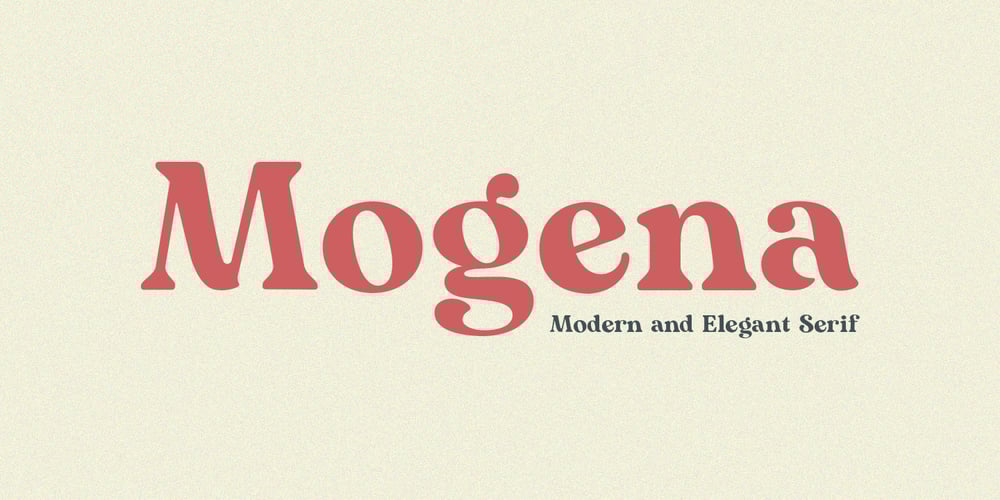
Mogena Font Family was designed by Eko Nur Cahyo and published by Kulokale. Mogena contains 2 styles and family package options. Mogena is a modern and elegant serif. It has a unique and different style and will give your design a friendly and expressive look. Mogena is perfect for many different projects such as logos and branding, invitation, stationery, wedding designs, social media posts, advertisements, product packaging, product designs, label, photography, watermark, special events or anything. We hope you enjoy the font and have fun! Thank You.